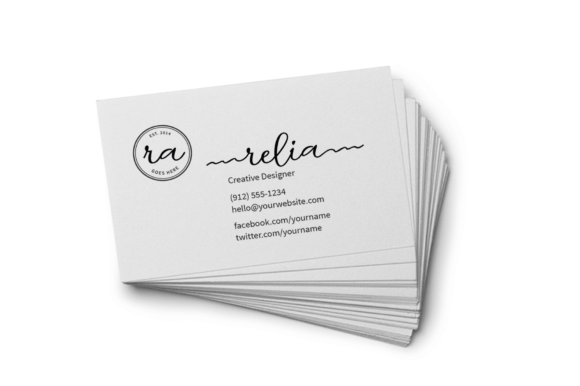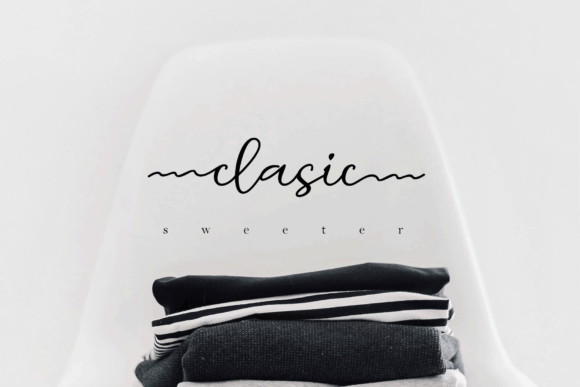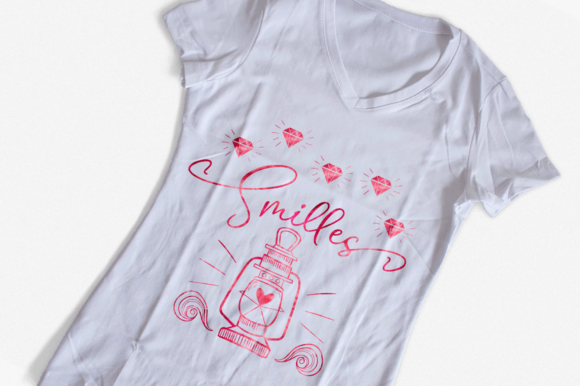
Introduction to Smilles Script Font
The Smilles is a lovely calligraphy.
Its combining a modern style with a classic calligraphy style Perfect for every design that needs an elegant touch.